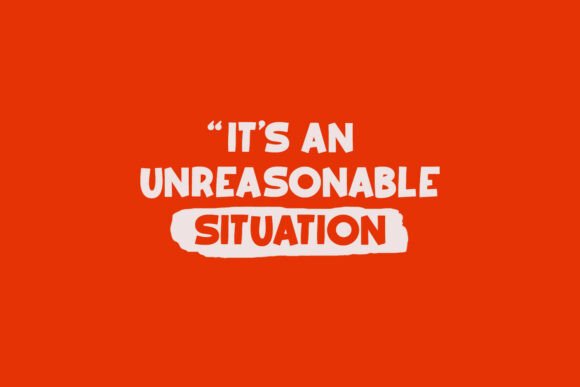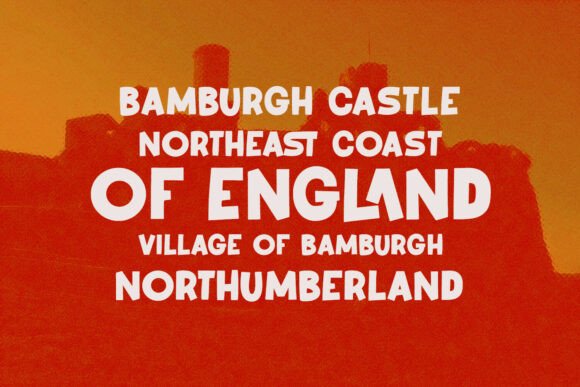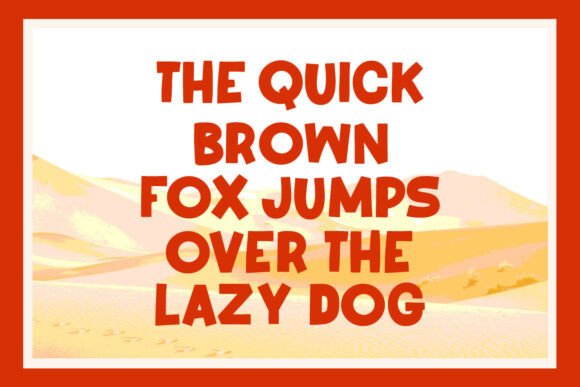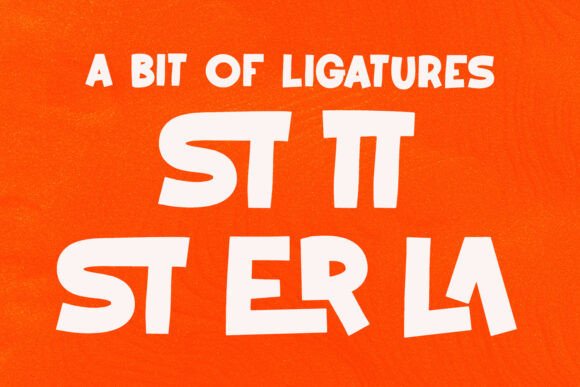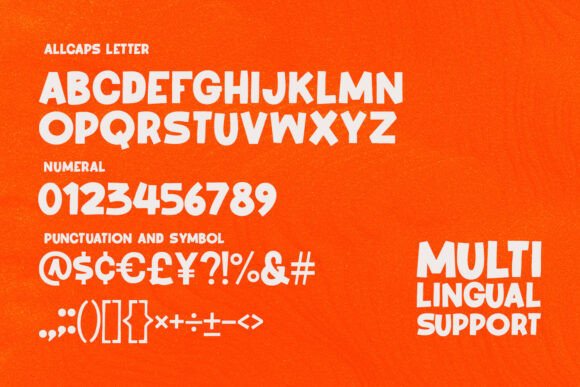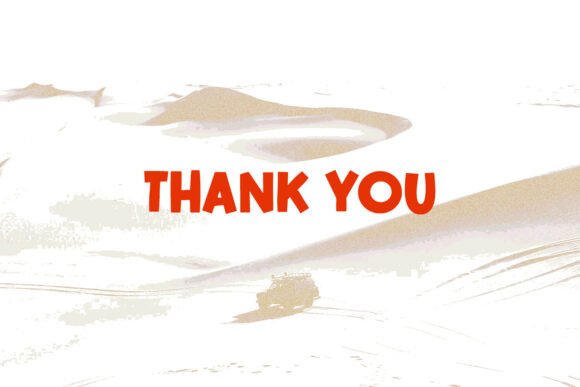
Introduction to Merfona Font
As designers, we’ve all been there – staring at a blank page, waiting for inspiration to strike. For me, it was a late-night brainstorming session for a children’s book project, and I was desperate for the perfect font to capture the playful essence of the story. That’s when I stumbled upon Merfona Font – a bold and quirky sans display font that instantly lit up my design process.
With its irregular shapes and fun personality, Merfona Font is a game-changer for designers looking to add some excitement to their creative projects. Whether you’re designing headlines, packaging, or even comic book covers, this font is sure to bring a burst of energy and charm to your layout. And the best part? Merfona Font is available for free download, making it an invaluable resource for designers on a budget.
In this article, we’ll delve into the world of Merfona Font and explore its features, benefits, and uses in various design projects. From its high-quality, transparent background to its versatility in both digital and print applications, we’ll cover everything you need to know about this incredible design resource.
Key Features of Merfona Font
- Includes multiple font styles and weights for versatility
- Supports various languages for international use
Honest Review: Merfona Font
I recently stumbled upon the Merfona Font, a free download that caught my attention as a valuable design resource. Initially, I was drawn to its unique and elegant style, perfect for creative projects that require a touch of sophistication.
What works well for me is the high quality of the font, which is evident even at larger sizes. The transparent background also makes it easy to layer over other design elements, giving me more flexibility in my design workflow.
Some of the notable features of the Merfona Font include:
- ✨ Unique and elegant design style
- ✨ High quality and clear typography
- ✨ Transparent background for seamless layering
However, I did encounter some limitations while using the Merfona Font. The font family is relatively small, which can make it less suitable for projects that require multiple font variations. Additionally, the font’s legibility can be affected at very small sizes, which may require some adjustments in design.
Overall, the Merfona Font is a great addition to any designer’s toolkit, offering a high-quality and versatile font for creative projects. While it may have some limitations, its unique style and transparent background make it a valuable resource for designers looking to elevate their designs.
The Merfona Font is a high-quality, free download design resource perfect for your creative project. With its transparent background, this font is versatile and can be used in a variety of applications.
Here are a few tips for getting the most out of the Merfona Font: use it in combination with other design elements to create a cohesive look, experiment with different font sizes and colors to add visual interest, and use the transparent background to create a sense of depth and dimension.
The Merfona Font is perfect for a variety of creative projects, including: logos, business cards, social media graphics, and presentations. Its high-quality design and transparent background make it a versatile and practical design resource.